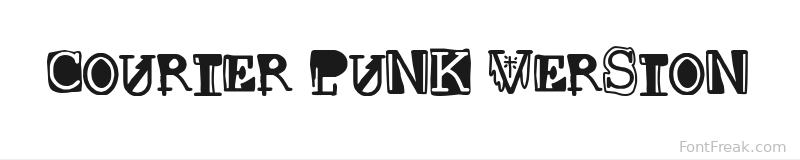
Courier punk Version
Courier punk Version by woodcutter Manero is a unique display font that combines a classic typewriter aesthetic with a bold punk flair. This freeware font features a playful, slightly irregular design that captures the rebellious spirit of the punk movement while maintaining readability. Its stroke weight is varied, with thicker sections that draw attention and thinner elements that add an intriguing contrast. The spacing is well-balanced, allowing for clear communication even in crowded layouts. Decorative characteristics include quirky serifs and unexpected letterforms that contribute to its distinctive personality.
This font is particularly well-suited for a variety of creative applications. Graphic designers can utilize Courier punk Version for edgy branding projects, such as coffee shop menus or vintage-style posters. Its unique look makes it a great choice for album covers in the music industry, especially for genres that embrace a punk aesthetic. Small business owners can use it in promotional materials to attract attention and convey a sense of uniqueness. Content creators looking for an eye-catching title font for blog headers or social media graphics will also find it effective.
Targeted towards graphic designers, small business owners, and content creators, Courier punk Version provides an opportunity to stand out in a crowded marketplace. The font's combination of nostalgia and modernity allows it to resonate with audiences who appreciate both retro and contemporary styles. The Courier punk Version font free download offers an easy way to incorporate this striking typeface into your projects, making it an essential addition to any designer's toolkit. With its distinctive character and versatile applications, this font is sure to leave a lasting impression.